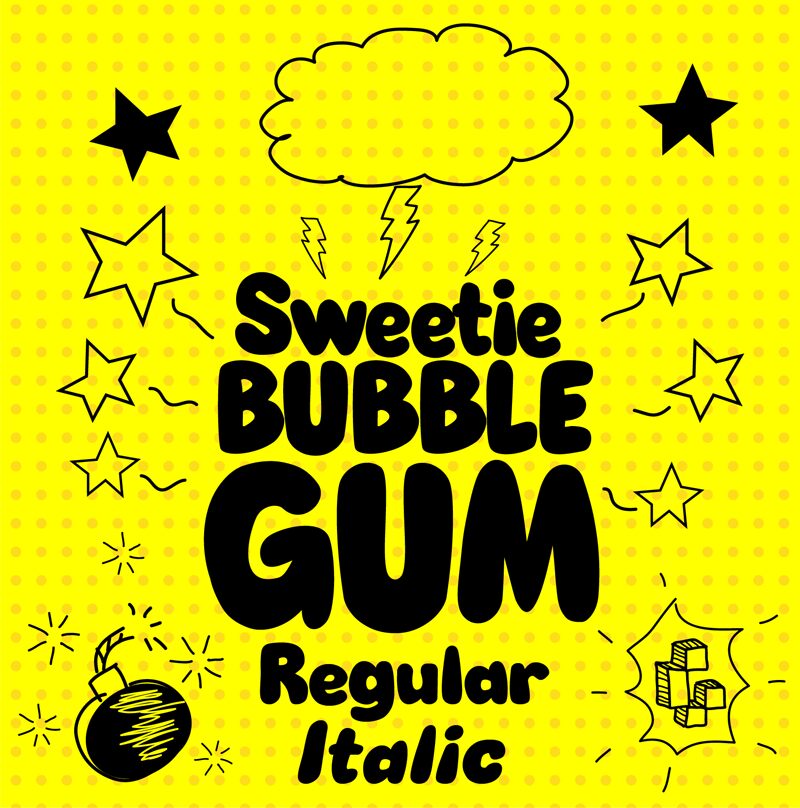
Sweetie Bubble Gum Regular
Sweetie Bubble Gum font by Galdino Otten Fonts is a display typeface with cartoonish, whimsical style. It has thick and rounded forms inspired by 1970s design and aesthetic where pop culture took the lead. This bubble style font is bubbly and casual, a charming mix of retro style features appropriate for contemporary design applications.
Ideal for children’s book covers, product packaging, video games headlines, food branding (especially confectionery), invitation cards for children’s parties or events, cartoons thumbnail images or posters, comic books titles or logos, title inscriptions on fun educational printouts for kids.